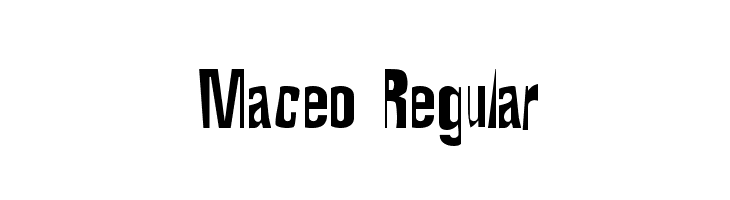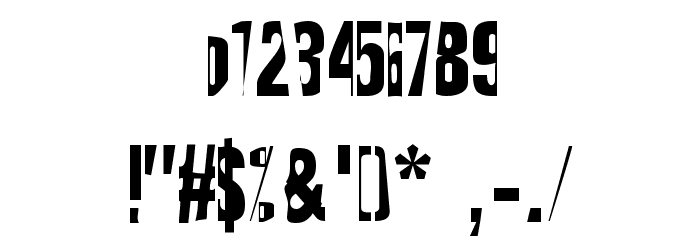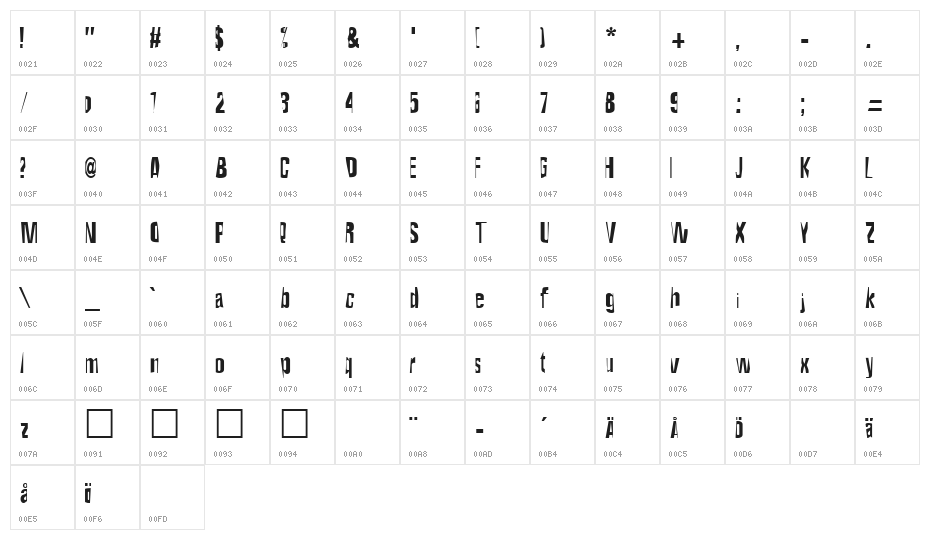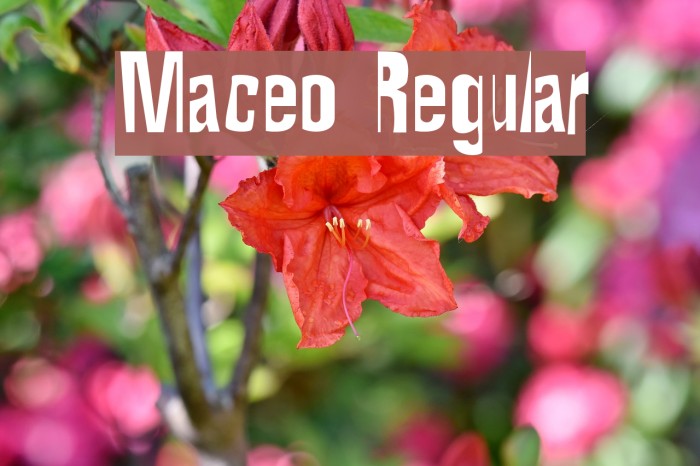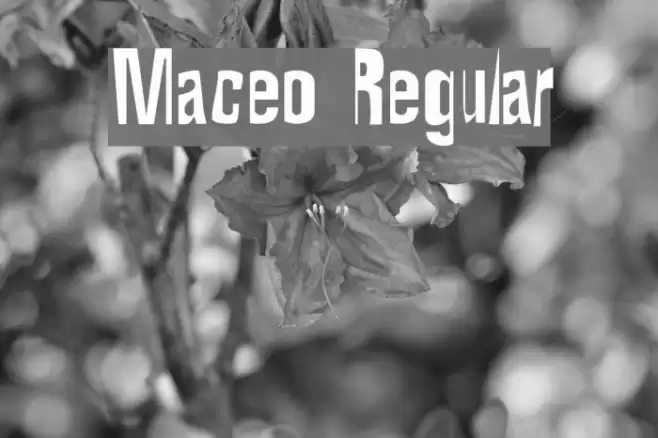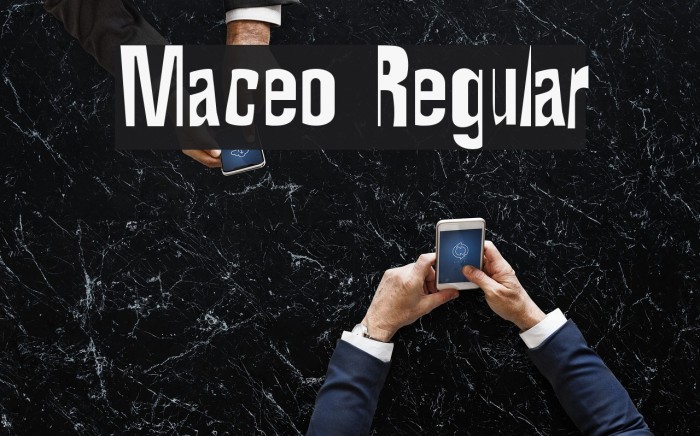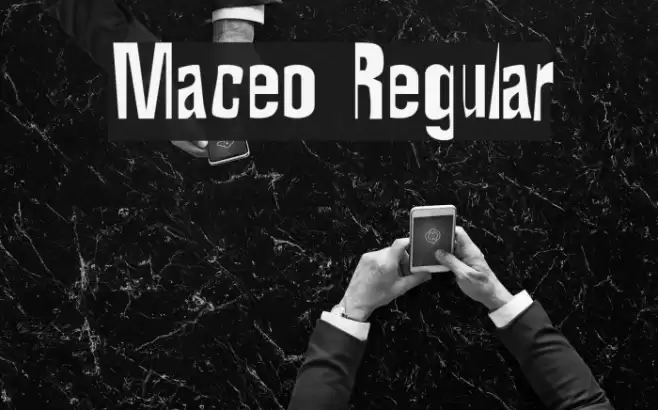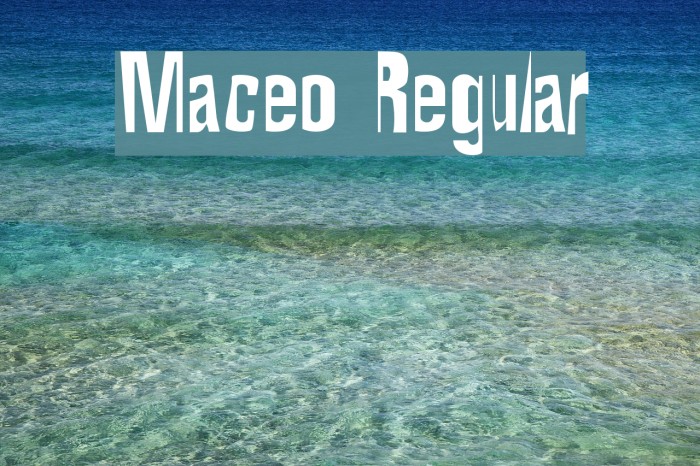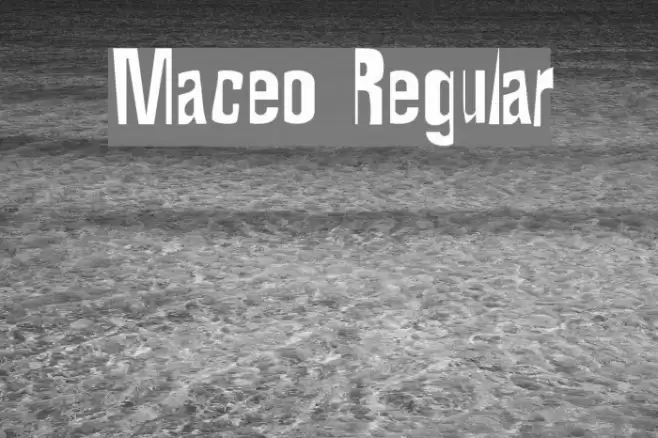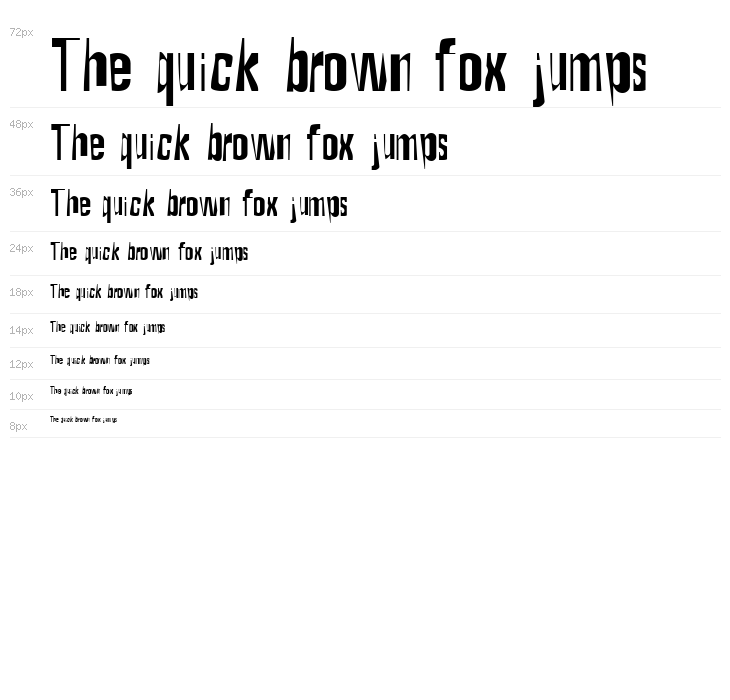
Maceo Regular Font
Maceo Regular Description
This font features a bold and dynamic style with a strong presence. The characters are designed with sharp angles and a slightly condensed form, giving it a modern and edgy appearance. The uppercase letters are particularly striking, with a unique geometric flair that adds a sense of movement and energy. The lowercase letters maintain a consistent style, complementing the uppercase with a slightly more relaxed form. Numbers and special characters are crafted with the same attention to detail, ensuring a cohesive look across all text. This font is ideal for projects that require a bold statement and a contemporary feel.
| Proposed Projects | Ideal for branding, posters, headlines, and any design needing a bold, contemporary look. |